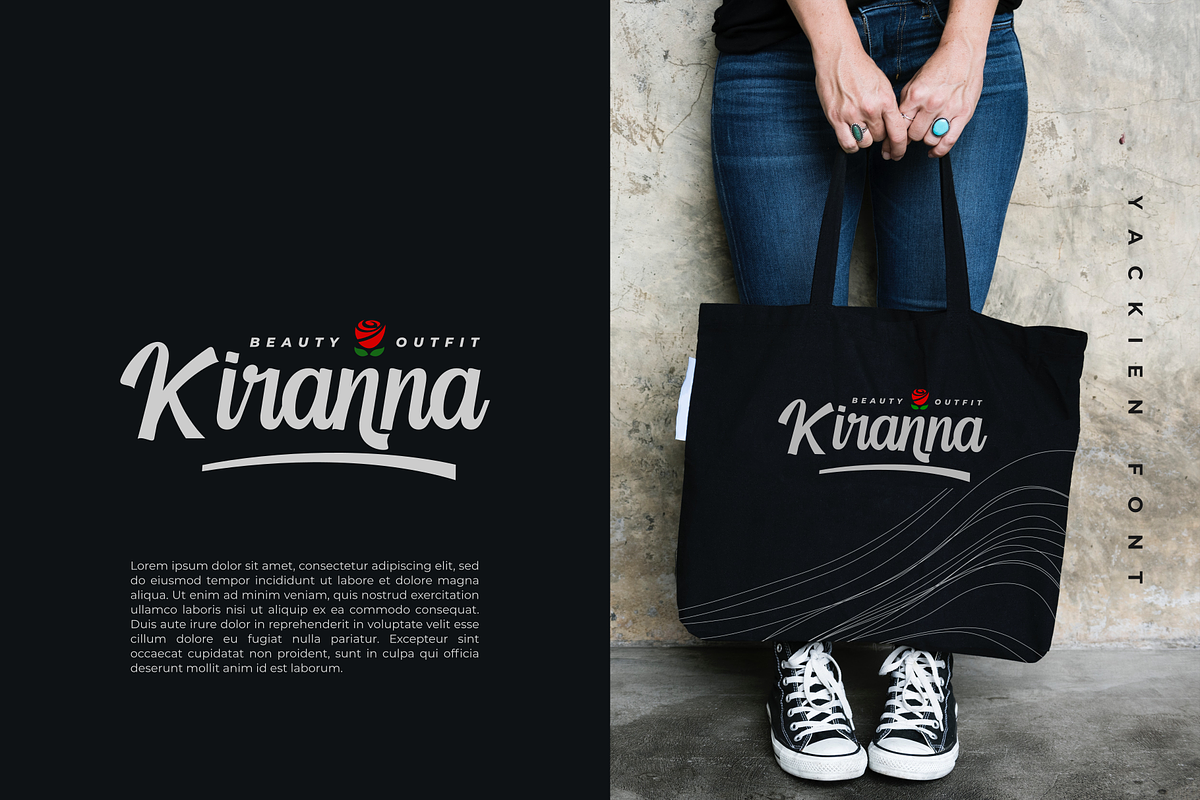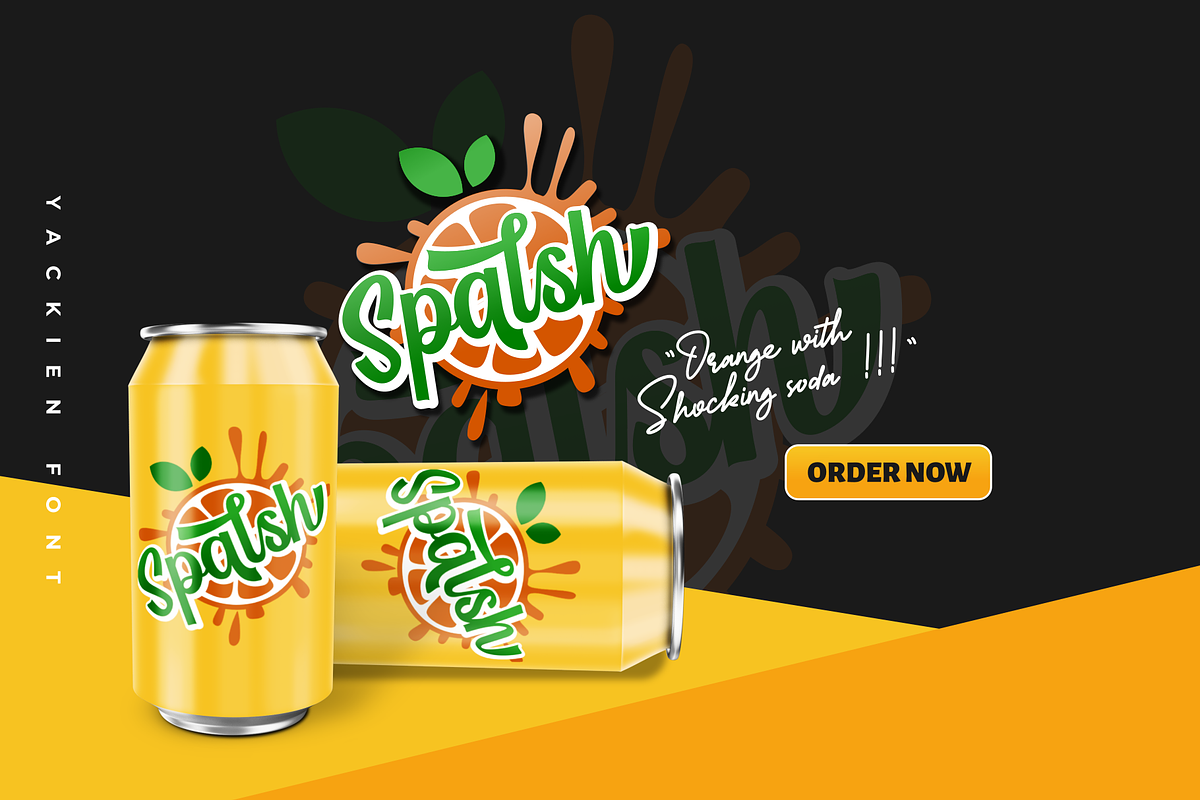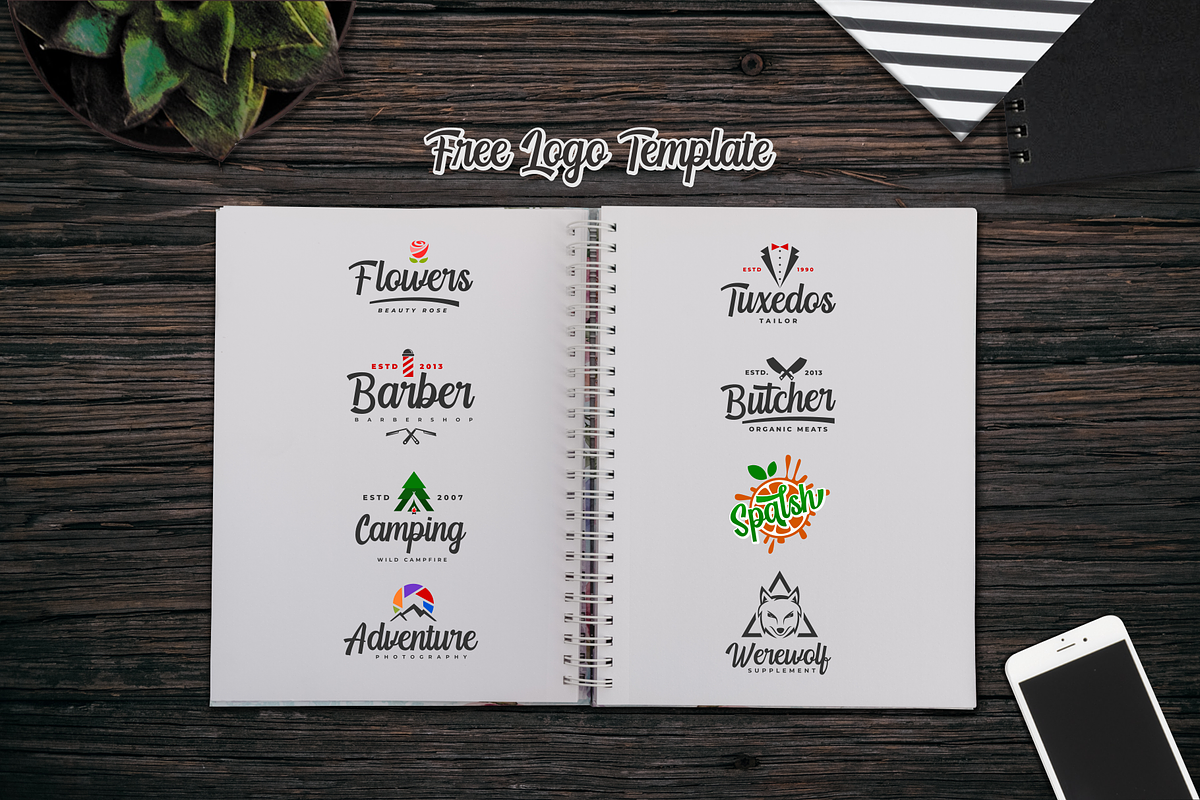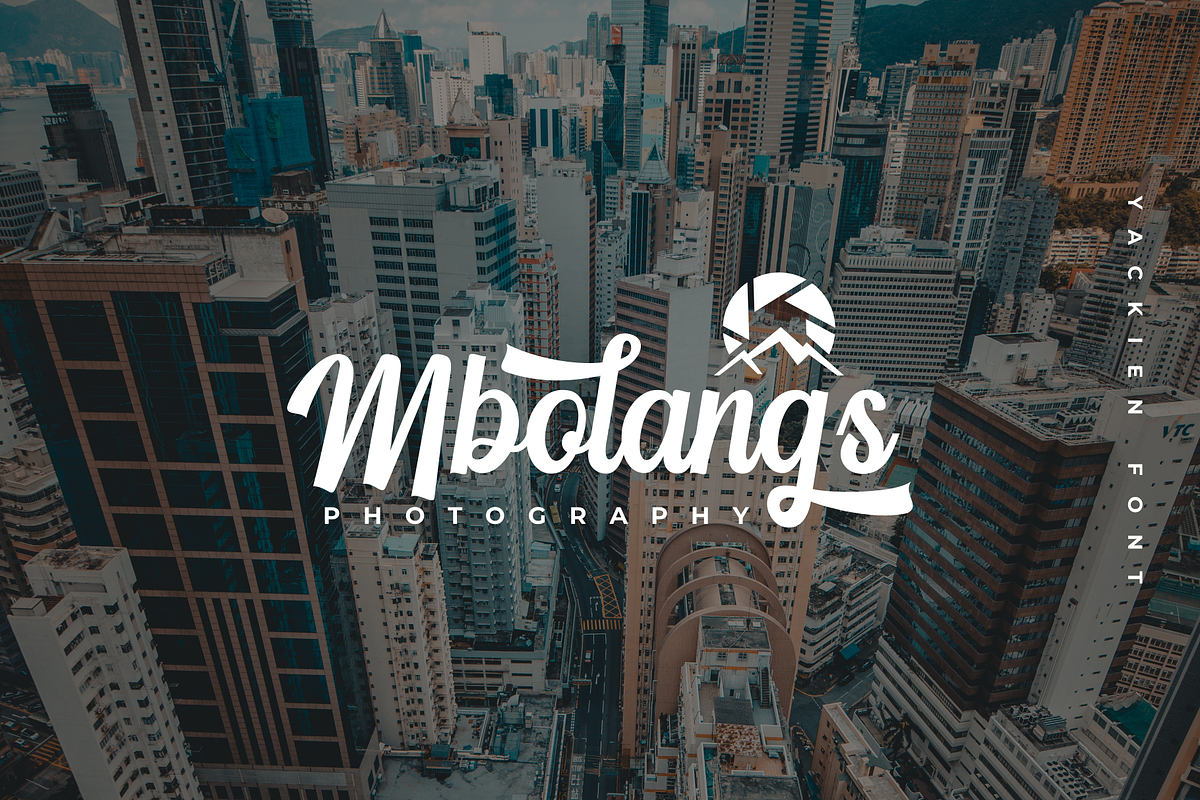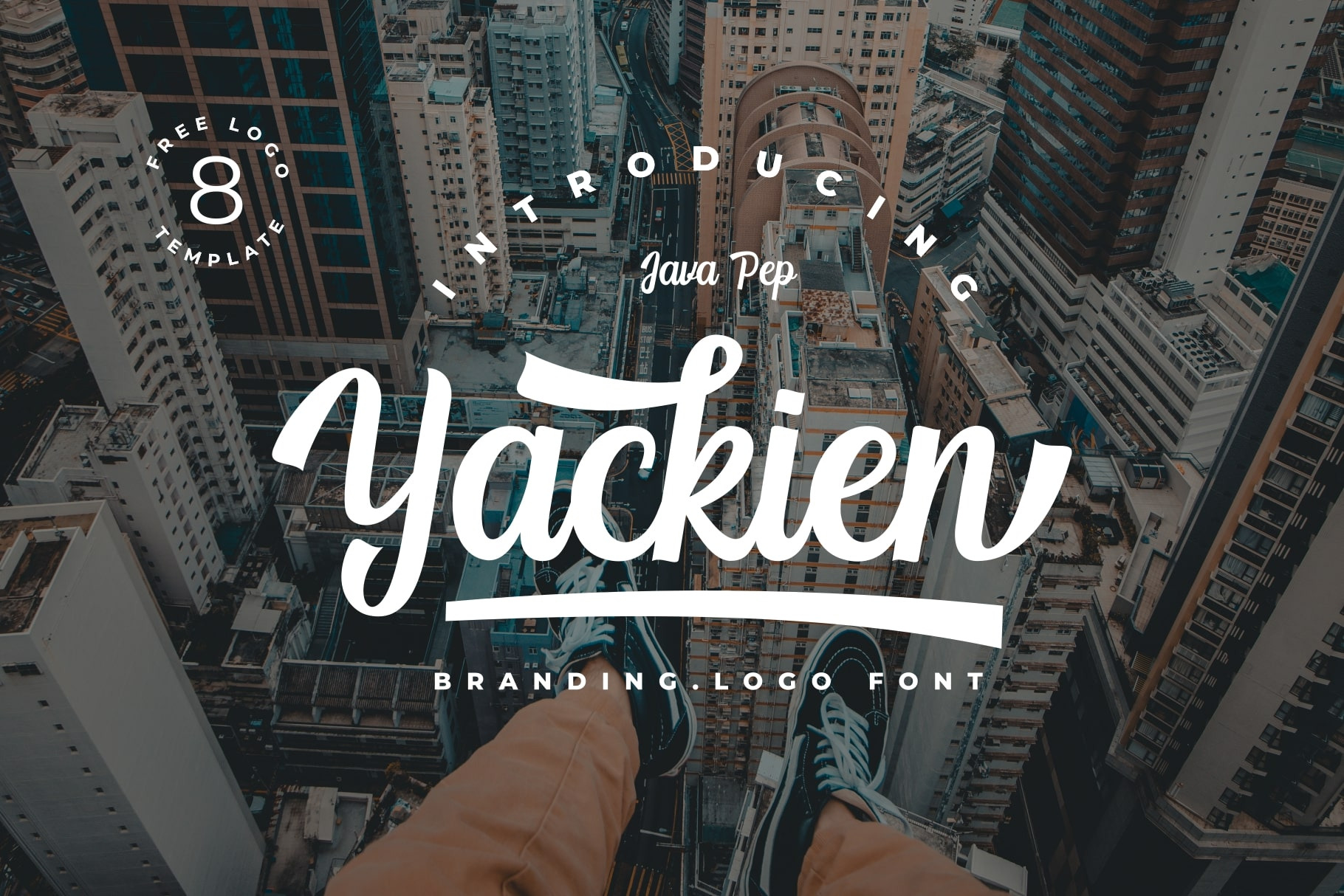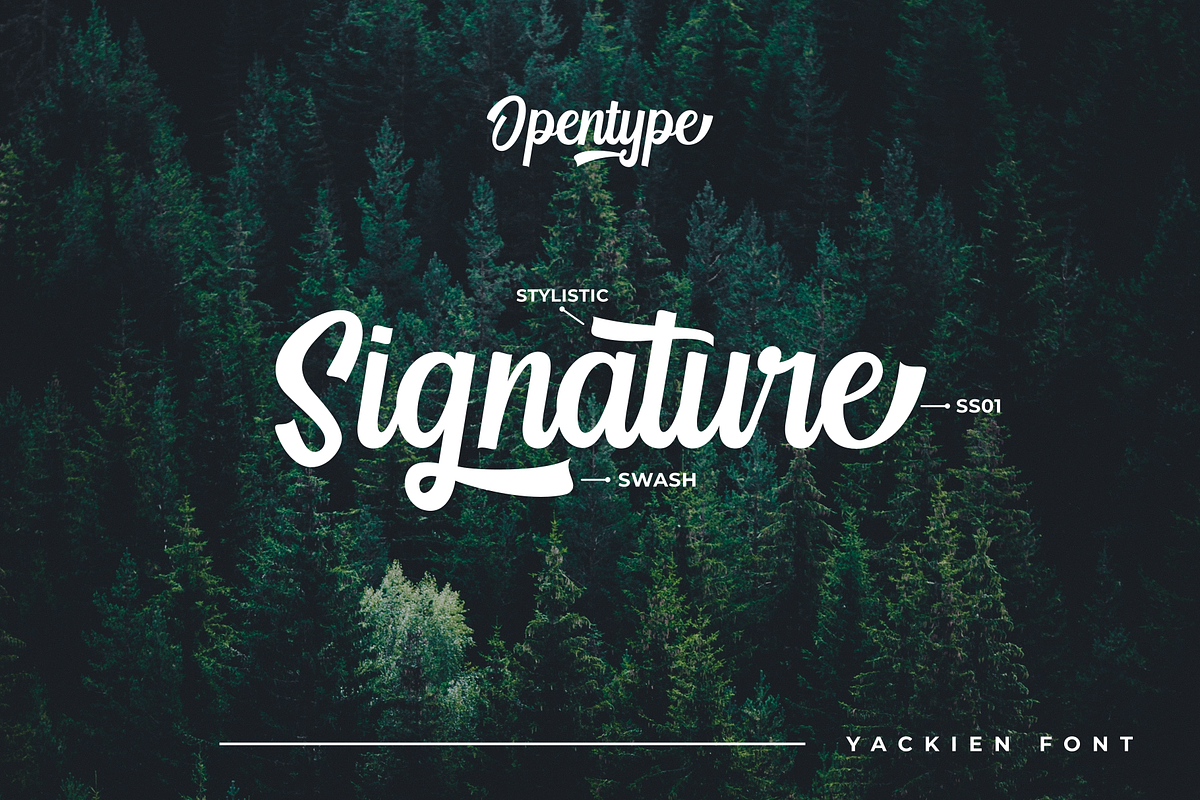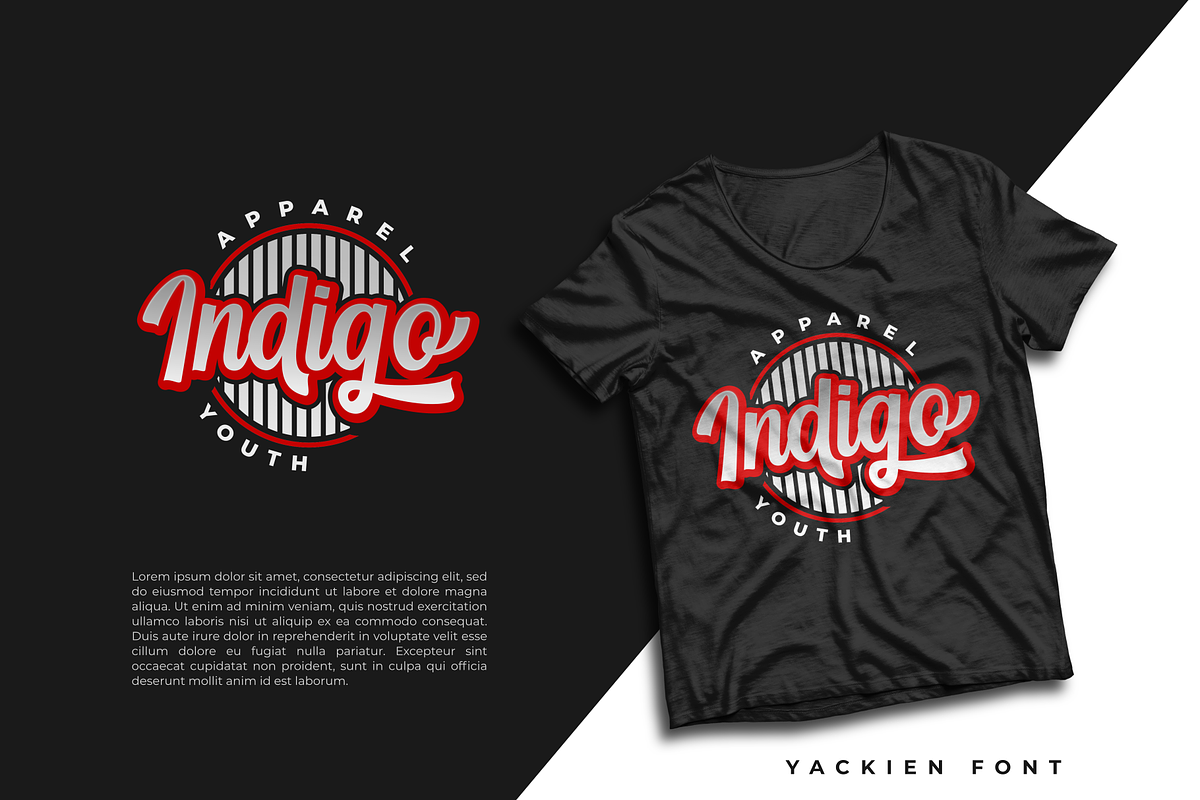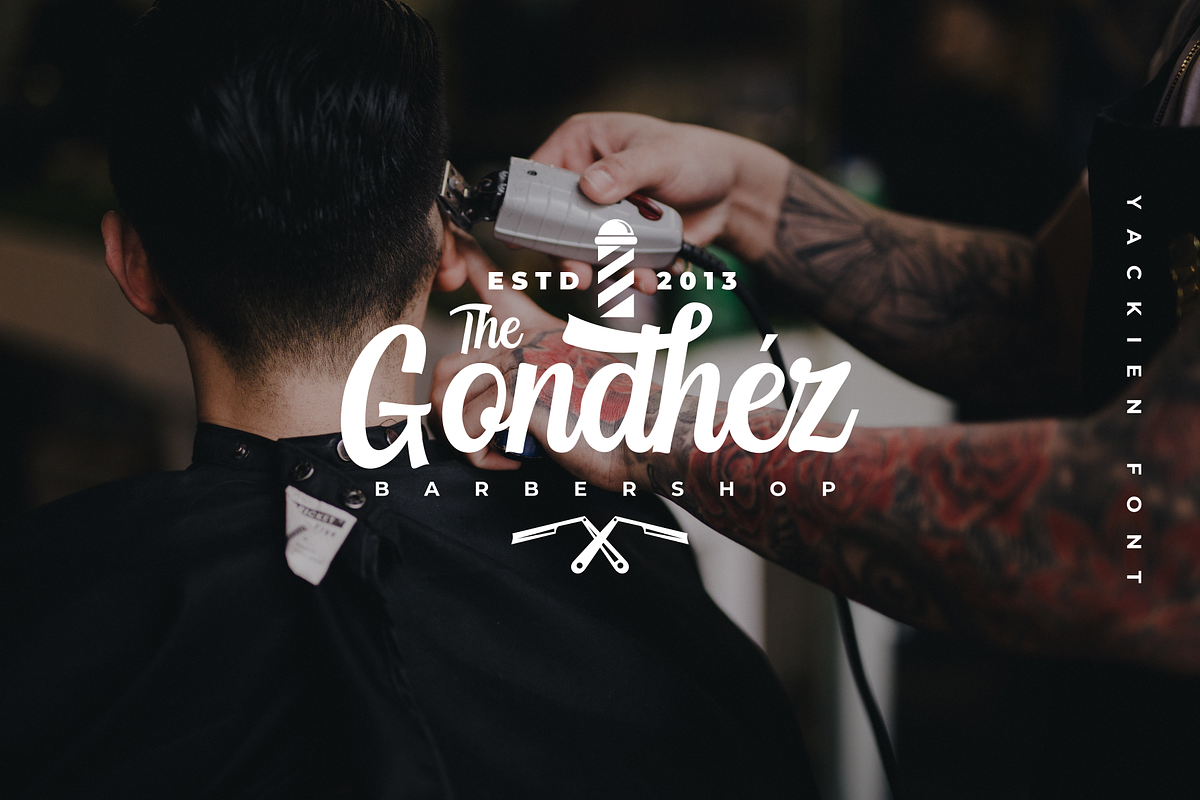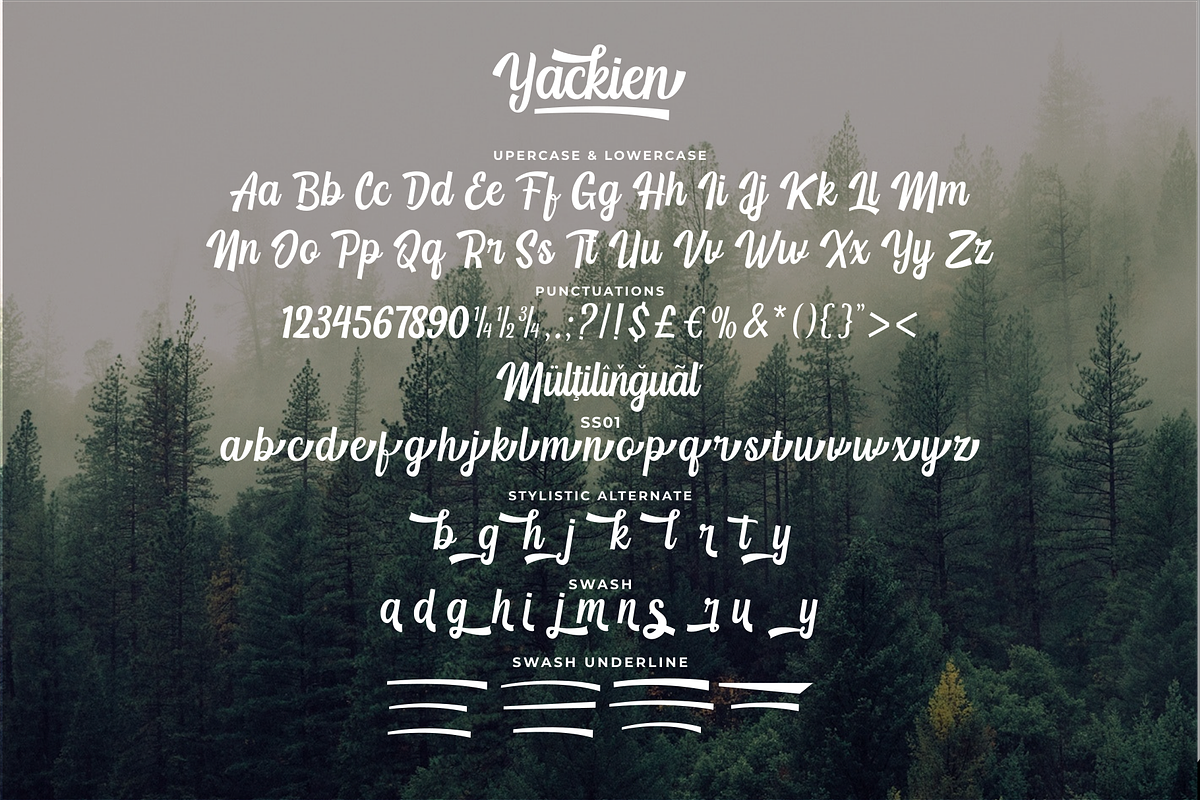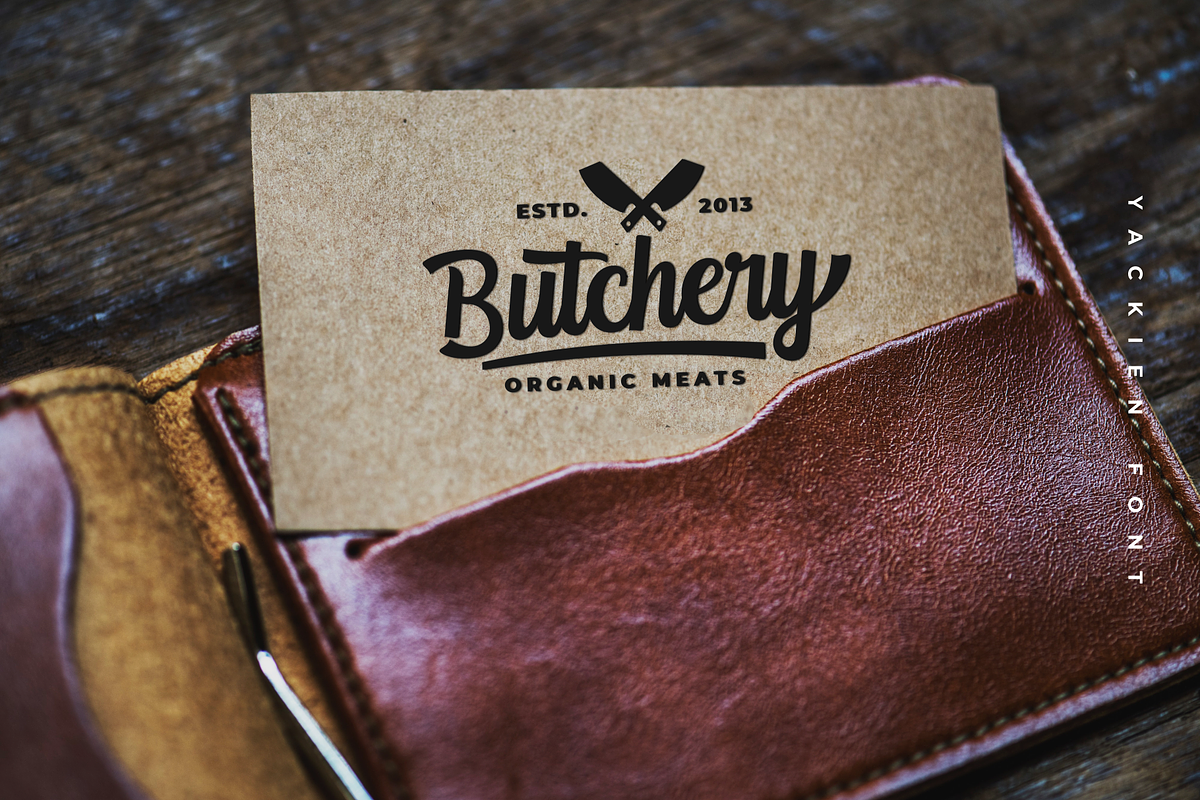
Yackien - Logo Font
Introducing the logo font called Yackien font. This font made for branding and logo font purposes, but still elegant for other project designs. Yackien (yakin) is the Indonesian language that the meaning is believed, trust, and convincing. So Yackien font can give off an aura of trust, believed, convincing, in your brand's logo and design.
- Multilingual, support 27 languages
- Opentype features